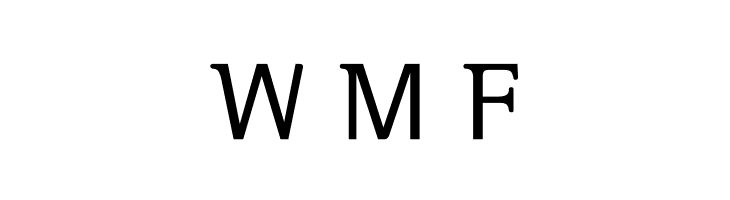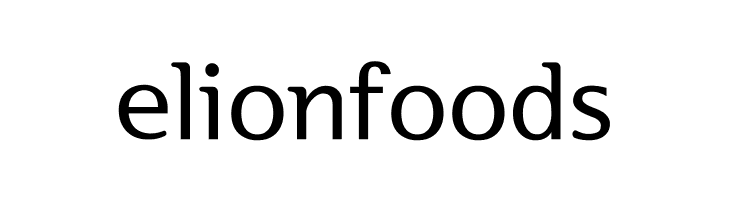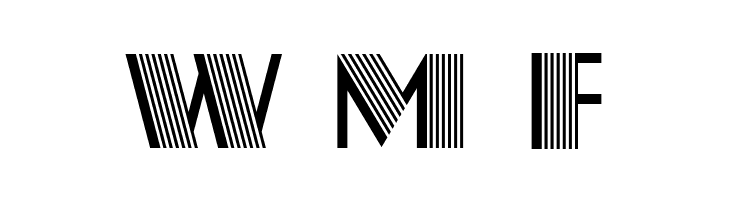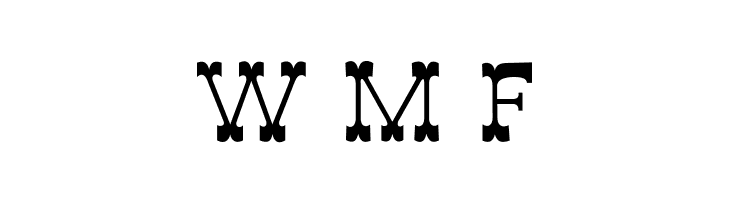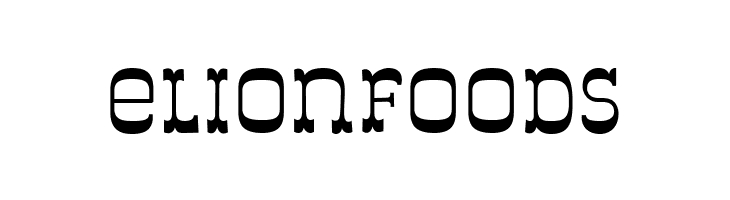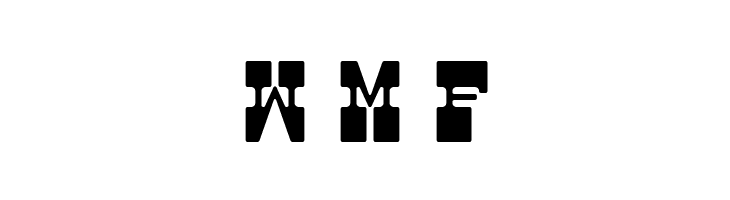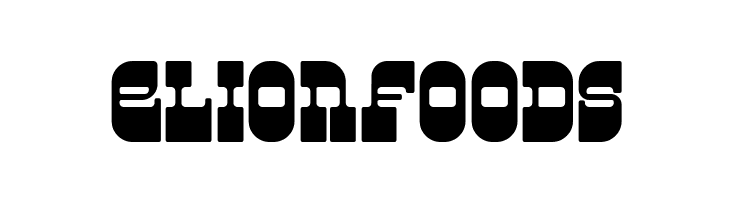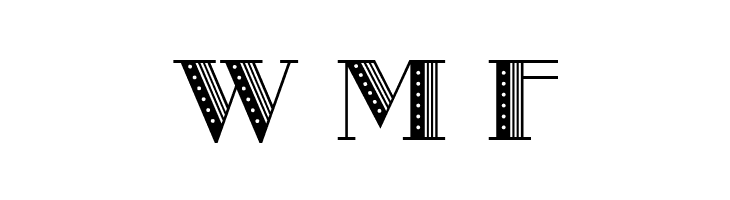
A bold, distressed font with a rugged, vintage appearance.
A playful, hand-drawn outline font with a cartoonish style.
A modern serif font with elegant curves and balanced proportions.
A bold, geometric font with intricate line patterns and a modern style.
A bold slab serif font with strong, block-like serifs and consistent stroke widths.
A bold, geometric display typeface with heavy, block-like letterforms.
A bold, decorative font with a retro, marquee-inspired design.